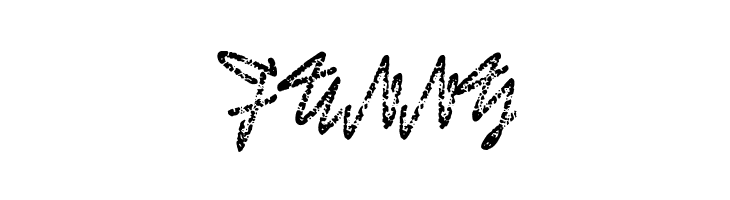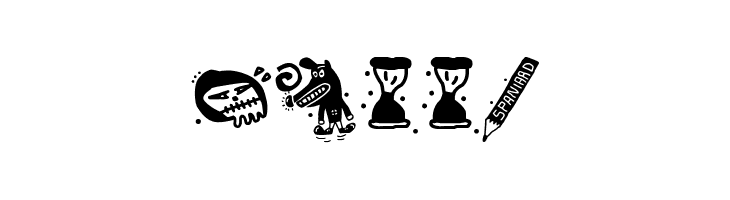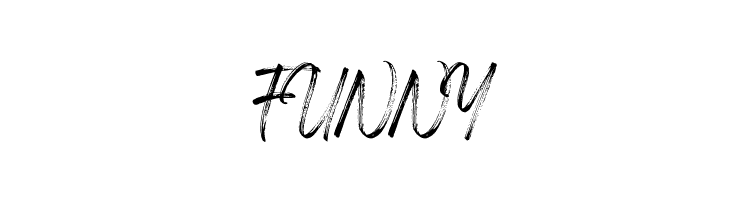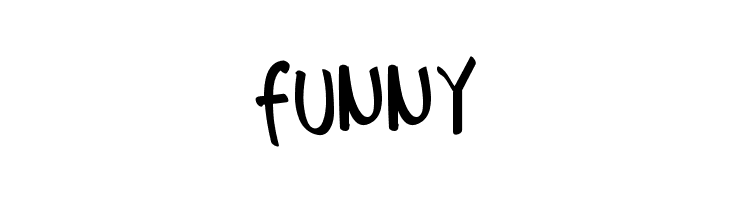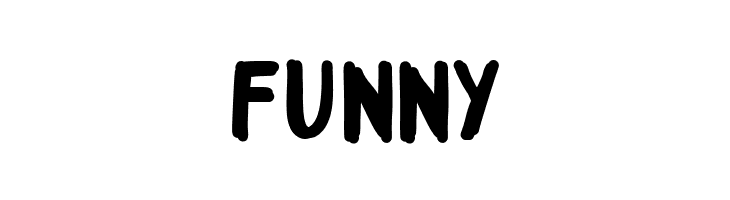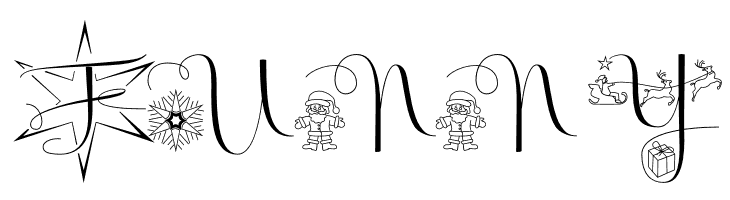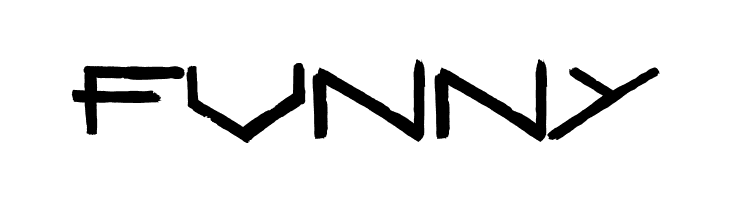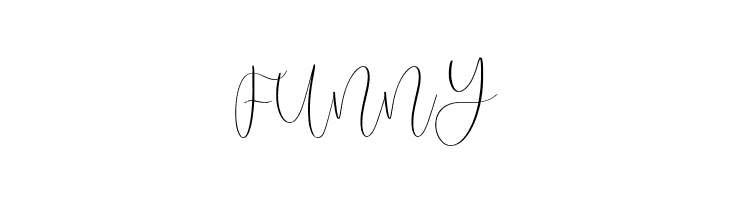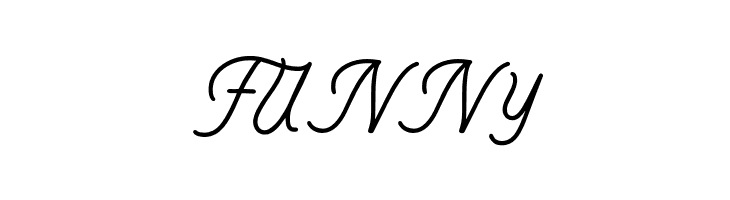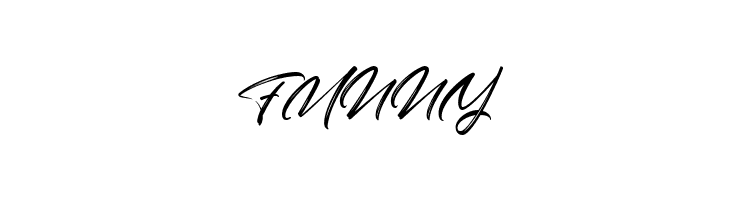
A playful, informal handwritten style with bold, irregular strokes.
A playful, handwritten-style font with uneven strokes and a casual vibe.
A bold, quirky display font with irregular, playful shapes.
A bold, brush-style font with dynamic, hand-painted strokes.
A whimsical, decorative font with intricate swirl patterns.
A bold, slightly italicized font with a modern and dynamic style.
A bold, edgy font with sharp, jagged edges and a rebellious, grunge-like style.
A bold, dripping font with a dramatic and edgy style.
A bold, playful script font with rounded, slanted characters.
A bold, decorative font with playful skull and star embellishments.
A playful, casual handwritten font with smooth, flowing lines.
A bold, rugged font with a hand-drawn, distressed appearance.
A bold, dripping graffiti-style font with a rebellious edge.
A bold, vintage-style font with ornamental serifs and a rugged, old-western appearance.
A bold, hand-drawn font with a textured, sketch-like appearance.
A casual, handwritten-style font with bold, irregular strokes.
A playful, bold, and hand-drawn font with a whimsical style.
A playful, bold font with rounded, slightly irregular letterforms.
A bold, geometric font with a strong, blocky appearance.
An artistic, calligraphic font with flowing, curvilinear strokes.
A bold, geometric font with a strong and impactful presence.
A bold, italic font with a dynamic and modern style.
A bold, illustrative font with unique, hand-drawn characters filled with graphic elements.
A flowing, elegant script font with smooth, cursive letterforms and artistic flourishes.
A bold, playful handwritten font with a casual and modern style.
A bold, expressive handwritten font with playful uppercase letters.
A bold, cursive font with dynamic strokes and elegant flourishes.
A tall, narrow font with a geometric and modern style.
A playful, bold font with rounded edges and a hand-drawn appearance.
A bold, distressed font with a textured, rugged appearance.
A dynamic and elegant script font with flowing cursive letterforms.
A flowing, cursive script font with elegant, handwritten characteristics.
A bold, playful, hand-drawn font with rounded edges.
Cartoonish dingbat font featuring humorous bad luck scenarios.
A modern, geometric font with a linear and rhythmic design.